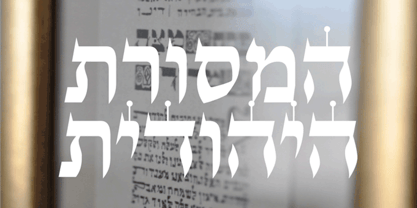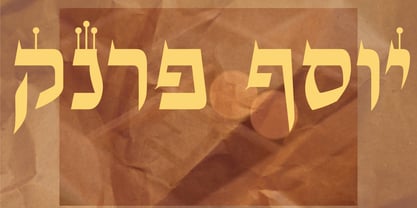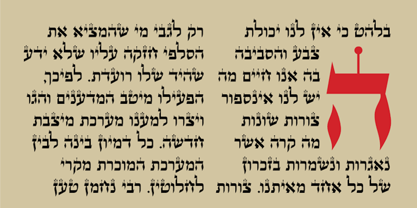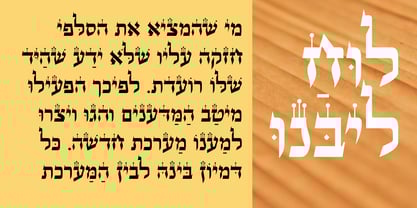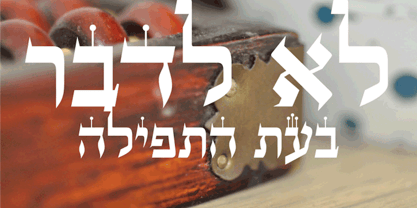
Stam Hasofer MF
Inspired by the artistry of traditional calligraphy created with ink and feather, this font stands out with its unique flow and contrast. It breathes new life into classic typefaces, offering a fresh rhythm and clarity. Renowned for its association with Holy Bible texts, this elegant font is perfect for any writing that evokes the spirit of sacred literature, making it an ideal choice for weddings, ceremonies, and similar occasions. The Scribe's script, crafted with a calligraphic nib on parchment paper, is reminiscent of scrolls used in synagogues, adding a touch of reverence and tradition to your projects.